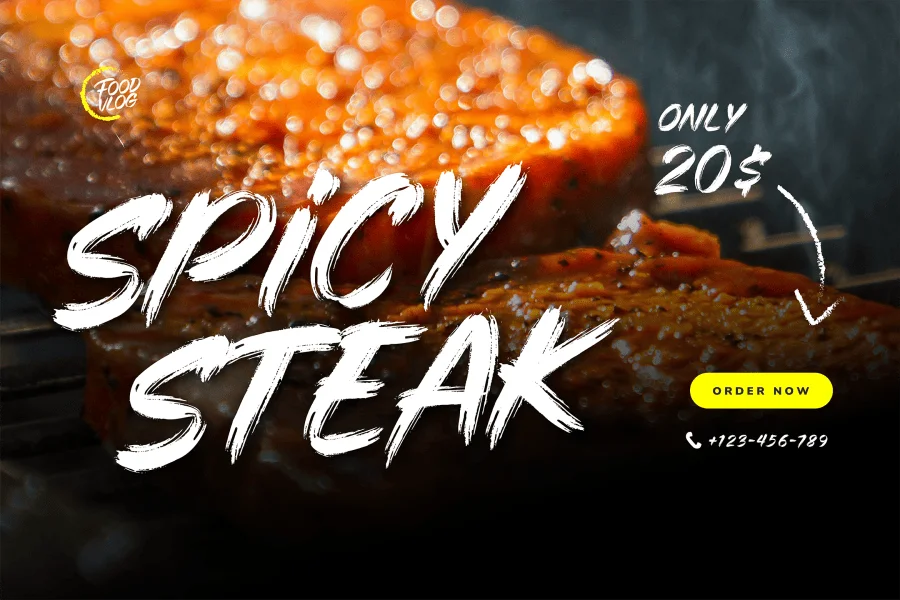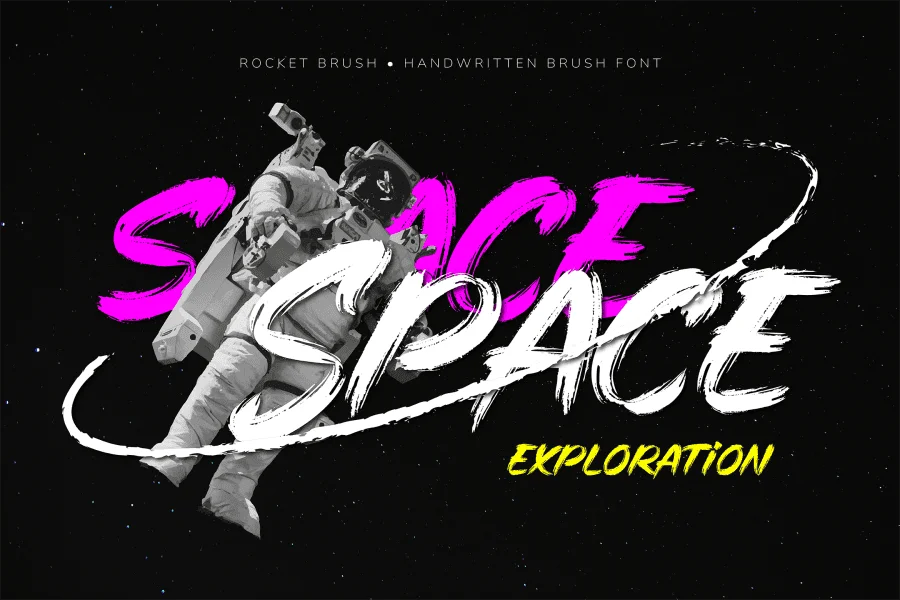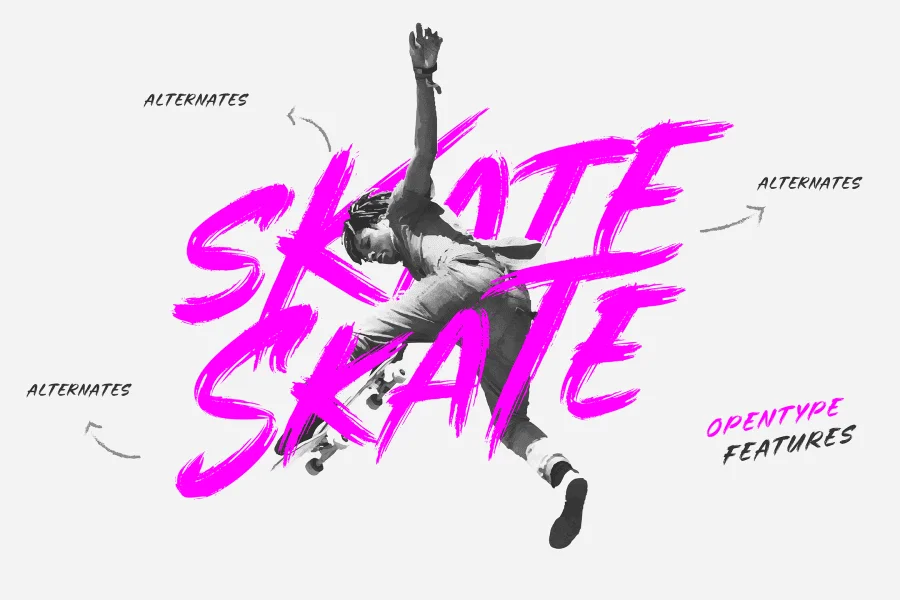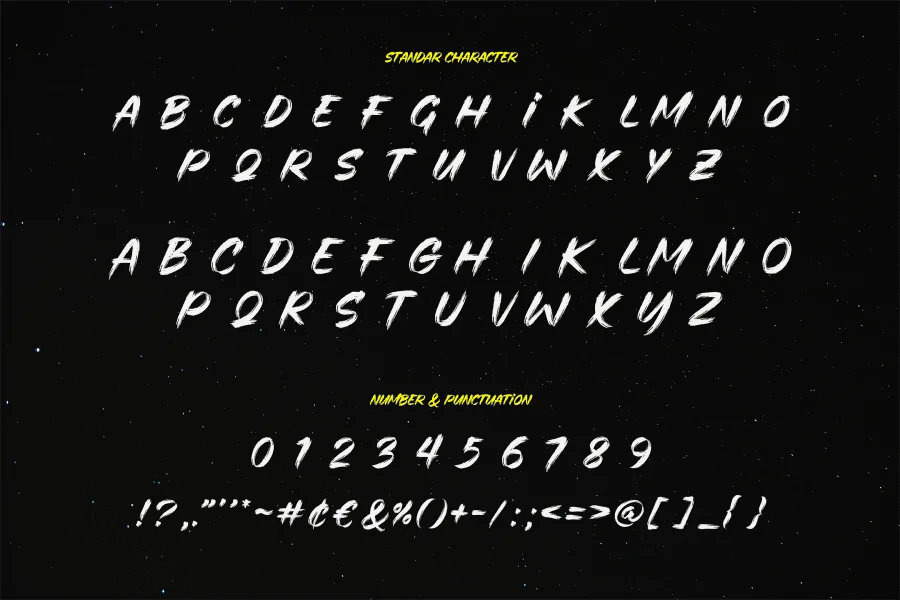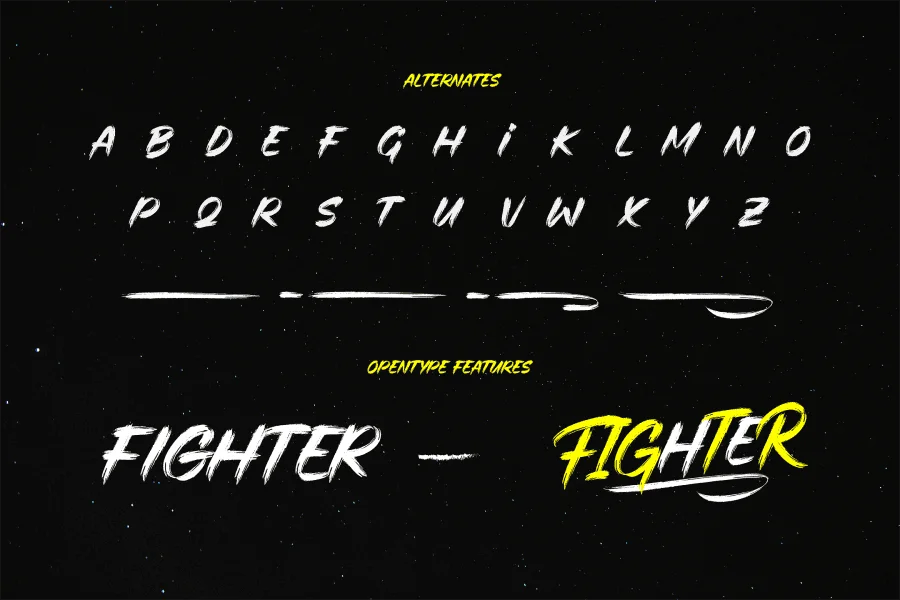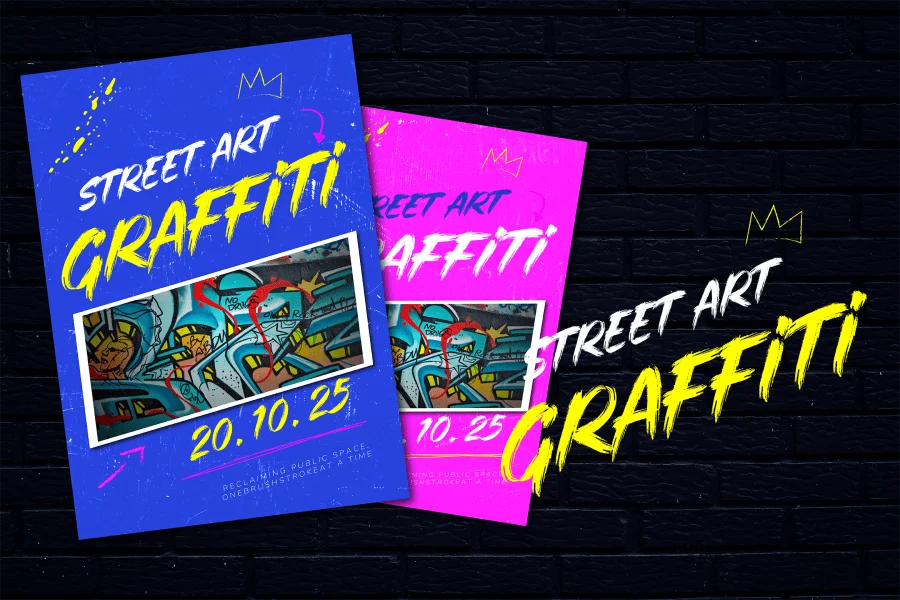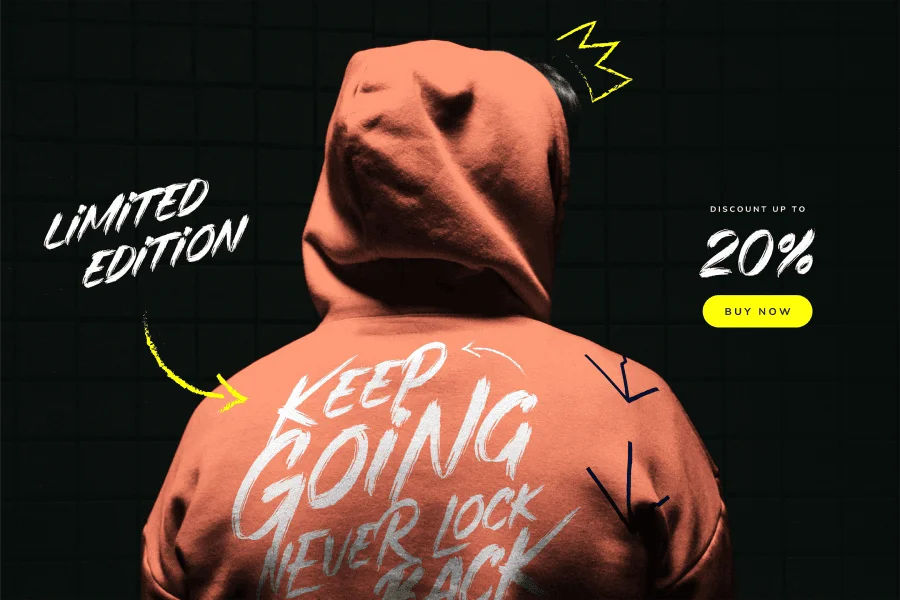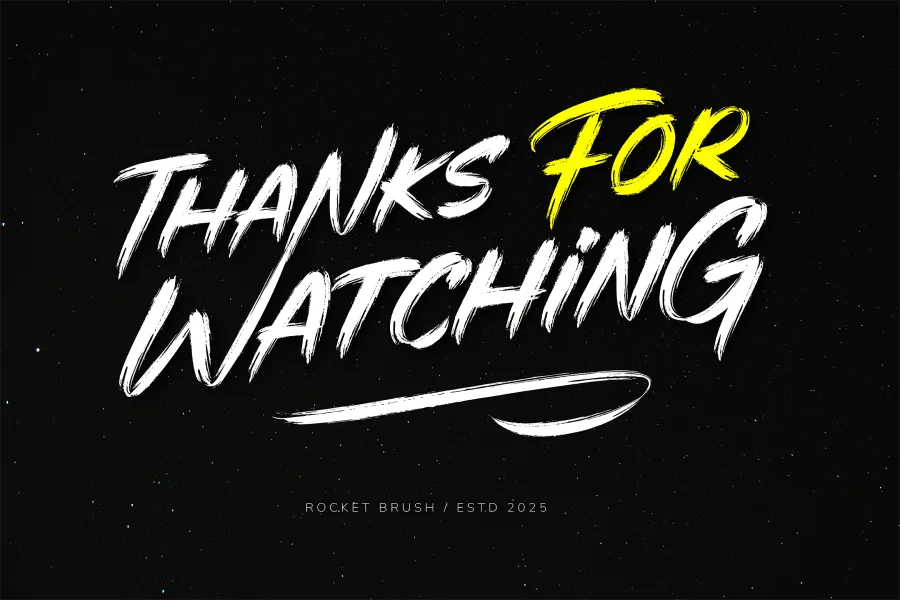
Ignite Your Designs with Bold Expression – Rocket Brush Font
Unleash a surge of creativity with Rocket Brush, a handcrafted brush font pulsing with raw, energetic style. Each letter is infused with dynamic strokes and bold character, making it the perfect choice for projects that demand attention and personality.
Whether you're designing edgy logos, striking posters, or standout social media graphics, Rocket Brush brings a powerful handcrafted feel that’s impossible to ignore. Inspired by the untamed spirit of street art and the fluidity of natural brushwork, this font adds movement and emotion to every word.
- Authentic handwritten brush texture
- Uppercase & lowercase letters
- Punctuation & multilingual support
- Perfect for branding, apparel, packaging, and more